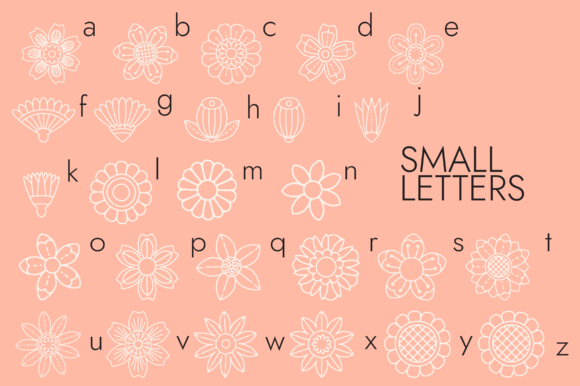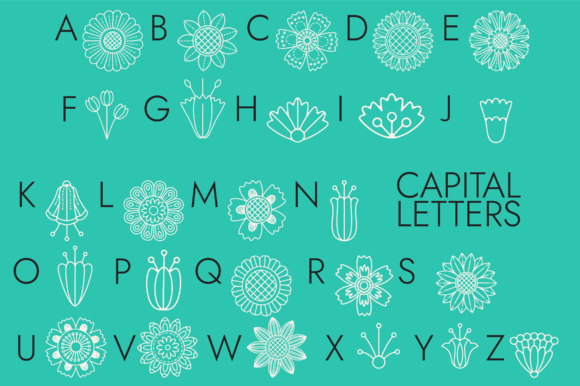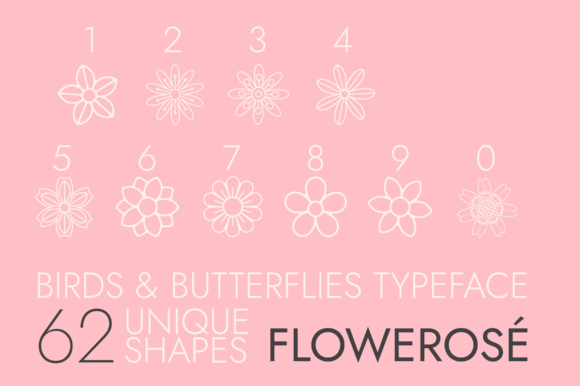
Introducing Flowerose Font: Elevate Your Designs with Whimsical Floral Accents
Are you tired of using the same old fonts in your creative projects? Look no further than Flowerose Font, an extraordinary dingbats font that brings a fresh and unique accent to your designs. With its vast array of multiple flowers and roses, Flowerose Font is the perfect addition to any designer’s or crafter’s toolkit.
What is Flowerose Font?
Flowerose Font is a one-of-a-kind dingbats font that features an extensive collection of floral designs, including roses, flowers, and other whimsical elements. This font is designed to help you create stunning designs, patterns, and accents that will make your projects stand out from the crowd.
With Flowerose Font, the design possibilities are endless. You can use it to create:
• Unlimited designs and patterns for your craft projects, such as scrapbooking, card making, and journaling.
• Eye-catching social media posts that will make your followers stop and admire your work.
• Beautiful flyers, brochures, and other marketing materials that will help your business stand out.
• Stunning digital art, illustrations, and graphics that will showcase your creativity.
Key Features of Flowerose Font
Here are some of the key features that make Flowerose Font an essential tool for designers and crafters:
• Unique and exclusive designs: Flowerose Font features a vast collection of floral designs that you won’t find anywhere else.
• Easy to use: This font is incredibly easy to use, even for those who are new to design and crafting.
• Scalable: Flowerose Font is scalable, which means you can use it for a wide range of projects, from small crafts to large-scale designs.
Tips and Tricks for Using Flowerose Font
Here are some tips and tricks to help you get the most out of Flowerose Font:
• Experiment with different colors and combinations: Don’t be afraid to try out different colors and combinations of flowers and roses to create unique designs.
• Use it with other fonts: Combine Flowerose Font with other fonts to create visually appealing and interesting text.
• Make it 3D: Use Flowerose Font to create stunning 3D designs and patterns that will add depth and texture to your projects.
Who Can Benefit from Flowerose Font?
Flowerose Font is perfect for:
• Designers: Graphic designers, digital artists, and illustrators will love the unique and exclusive designs offered by Flowerose Font.
• Crafters: Scrapbookers, card makers, and journalers will adore the whimsical and floral designs that Flowerose Font has to offer.
• Small business owners: If you’re looking for a way to make your marketing materials stand out, Flowerose Font is an excellent choice.
Font Name Flowerose Font
Author Minimalistartstudio
In conclusion, Flowerose Font is an amazing and unique dingbats font that will add a fresh and unique accent to your creative projects. With its multiple flowers and roses, you can create unlimited designs, patterns, social media posts, flyers, or anything else! Whether you’re a designer, crafter, or small business owner, Flowerose Font is an essential tool that will help you elevate your designs and take your creativity to the next level.